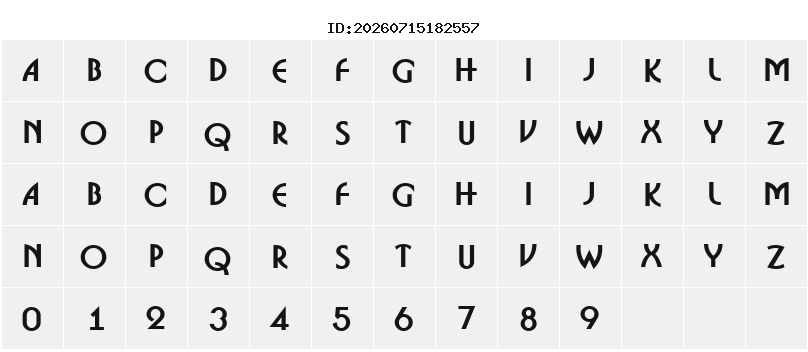
a_BosaNova Preview
• Font Name: a_BosaNova
• Font ID: Macromedia Fontographer 4.1 a_BosaNova Bold
• Full Font Name: a_BosaNova Bold
• PostScript Name: ABosaNovaBold
About a_BosaNova.ttf
a_BosaNova.ttf is a modern, elegant sans-serif font designed for ultimate readability and visual harmony. Perfect for branding, headlines, web design, and print materials.